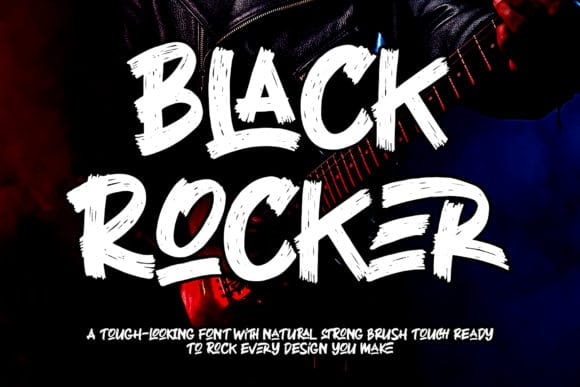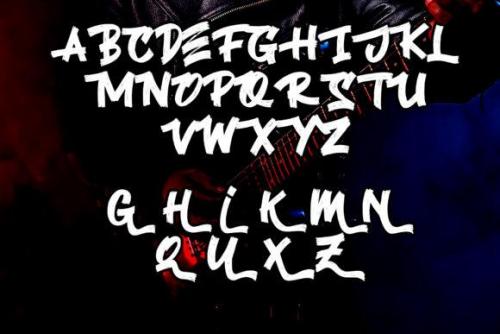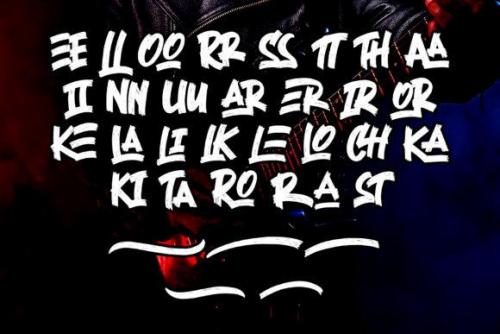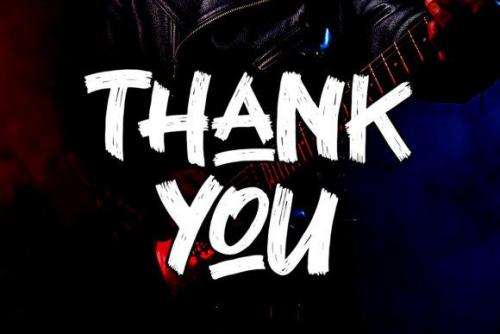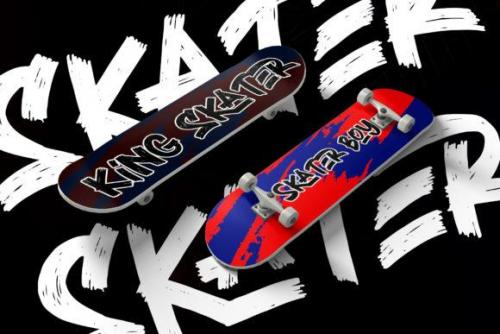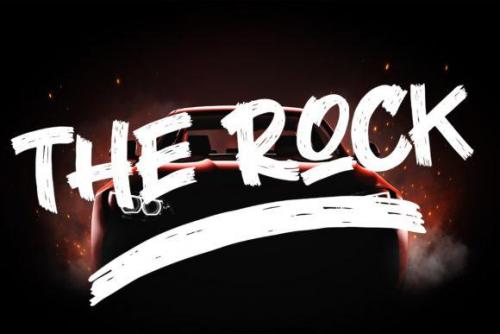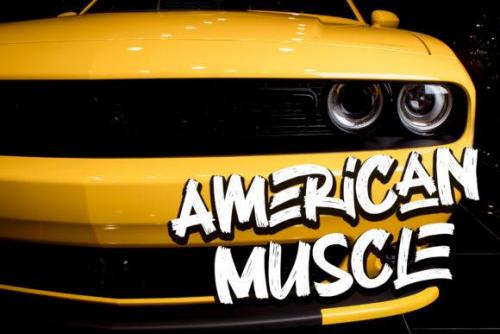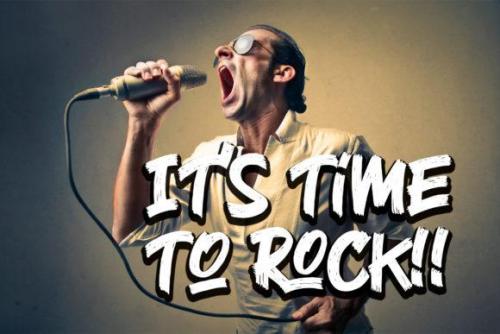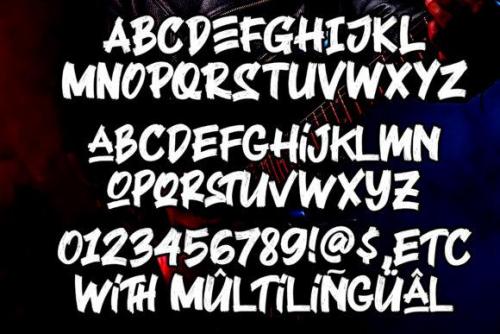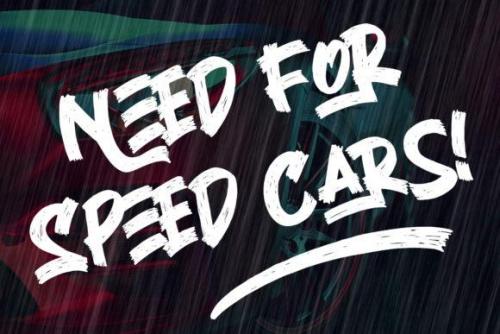
Black Rocker is a natural, dry brush display font. It is a tough-looking font with a strong brush touch, ready to rock every design you are willing to create. It’s perfect for logos, quotes, posters, clothing, and so much more!